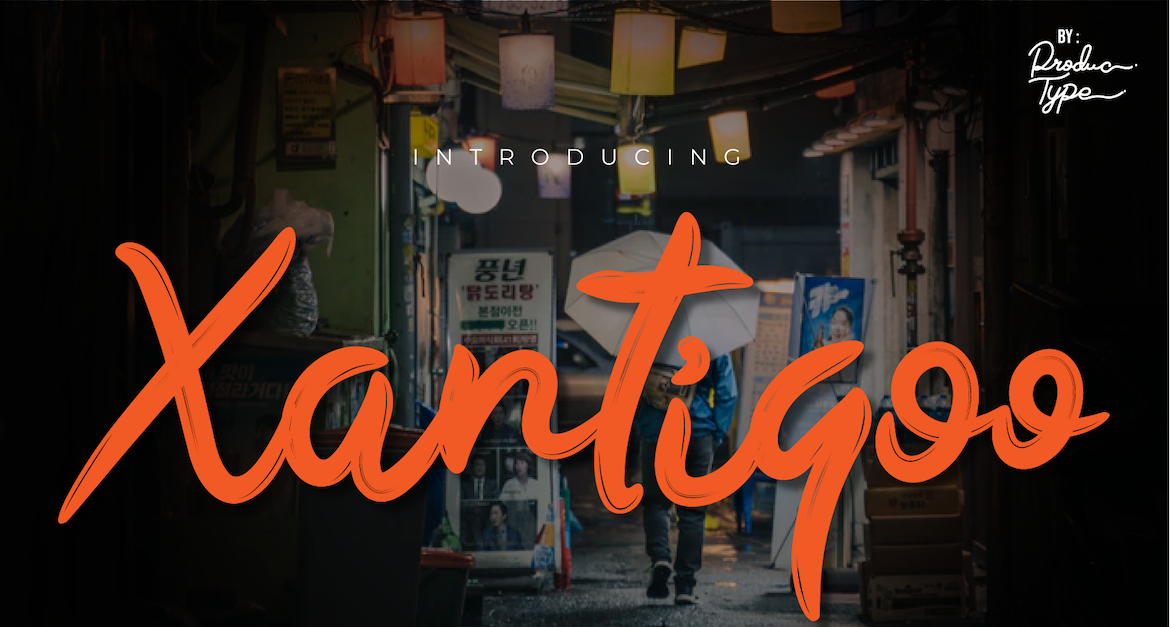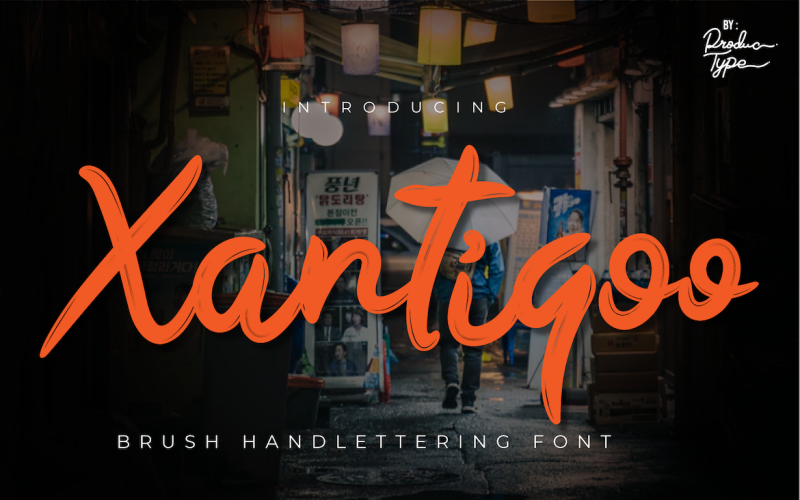
Xantiqoo Font
Xantiqoo is a casual and thick lettered handwritten font. It is ideal for writing quotes, headlines or any design that you wish to put forth. Fall in love with its incredibly versatile style and use it to create spectacular designs!
This font will turn any creative idea into a true piece of art, this font is perfect for strong text with displays for a wide variety of branding, advertising, posters, banners, packaging, headlines, outdoor activity, websites, logo design, and more.